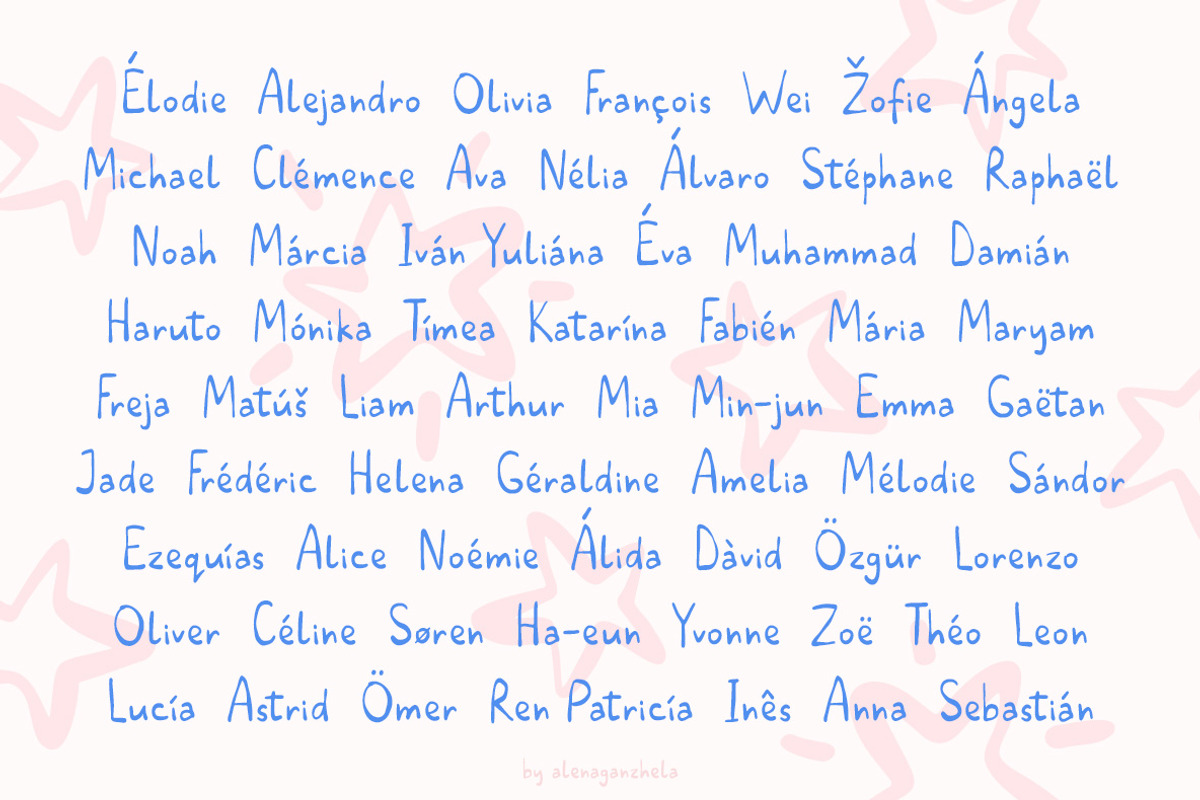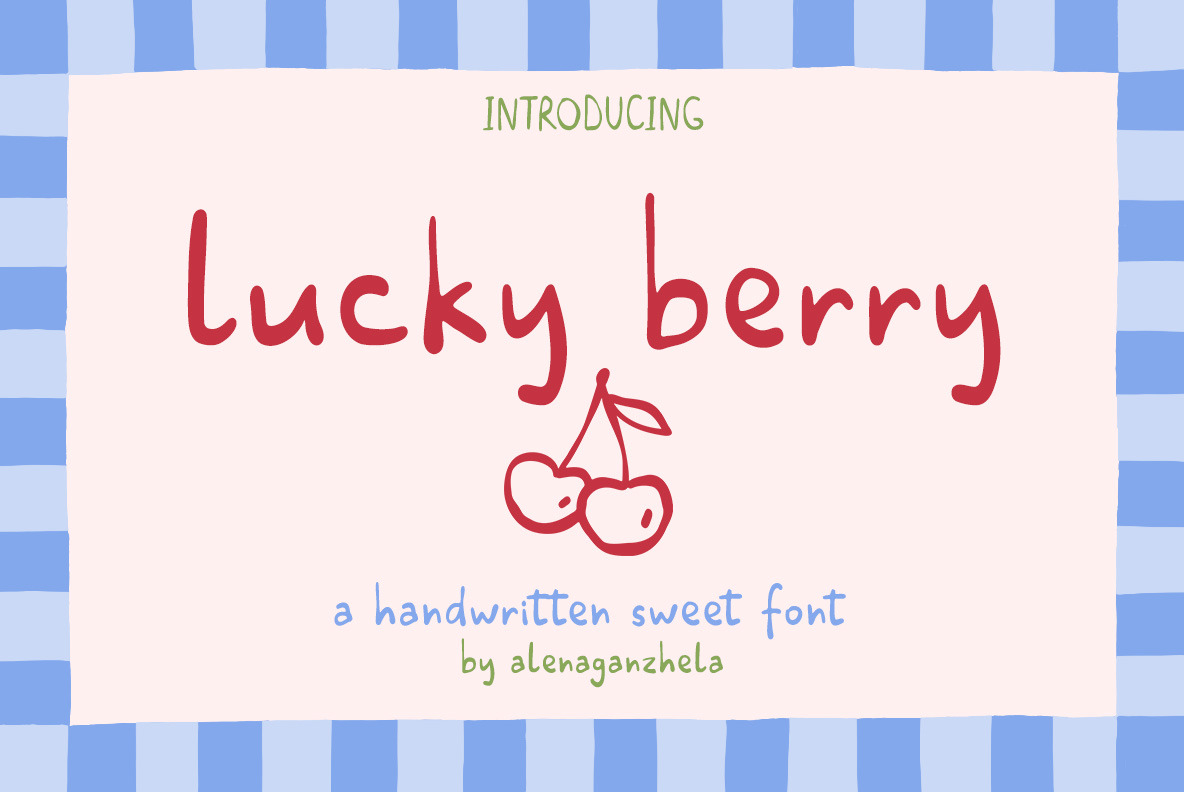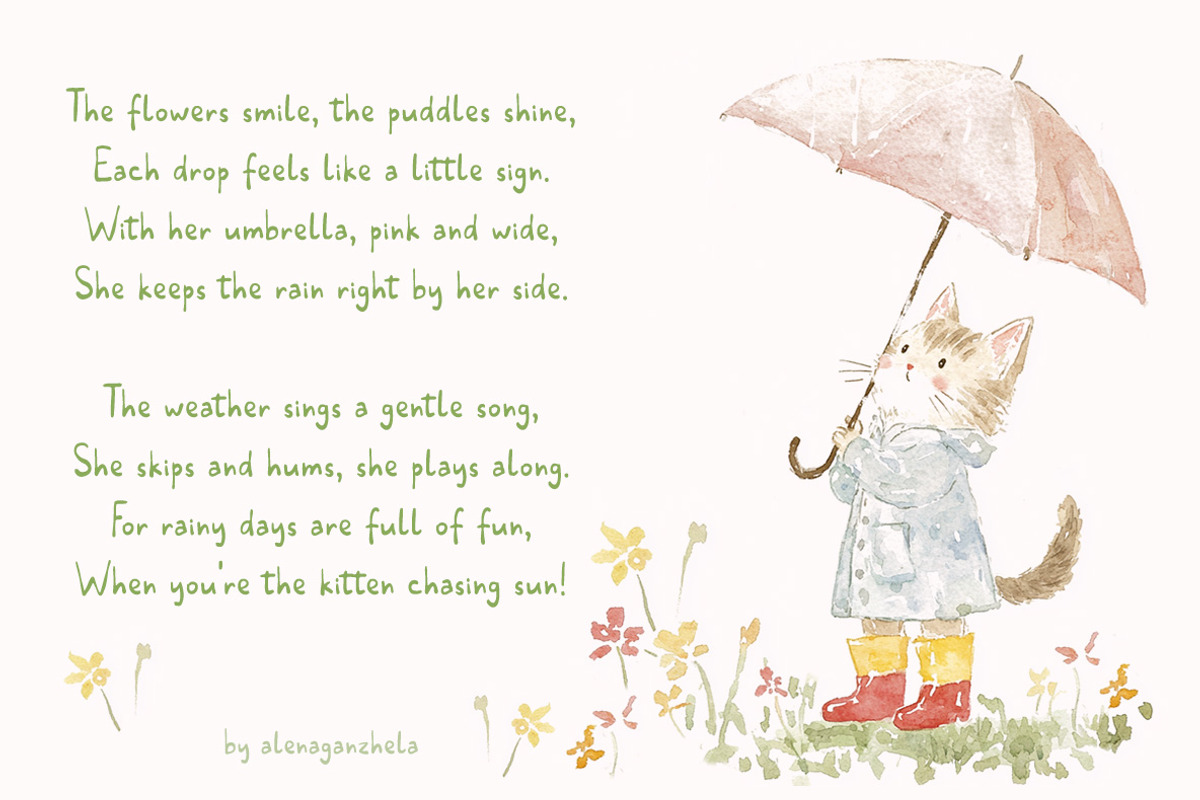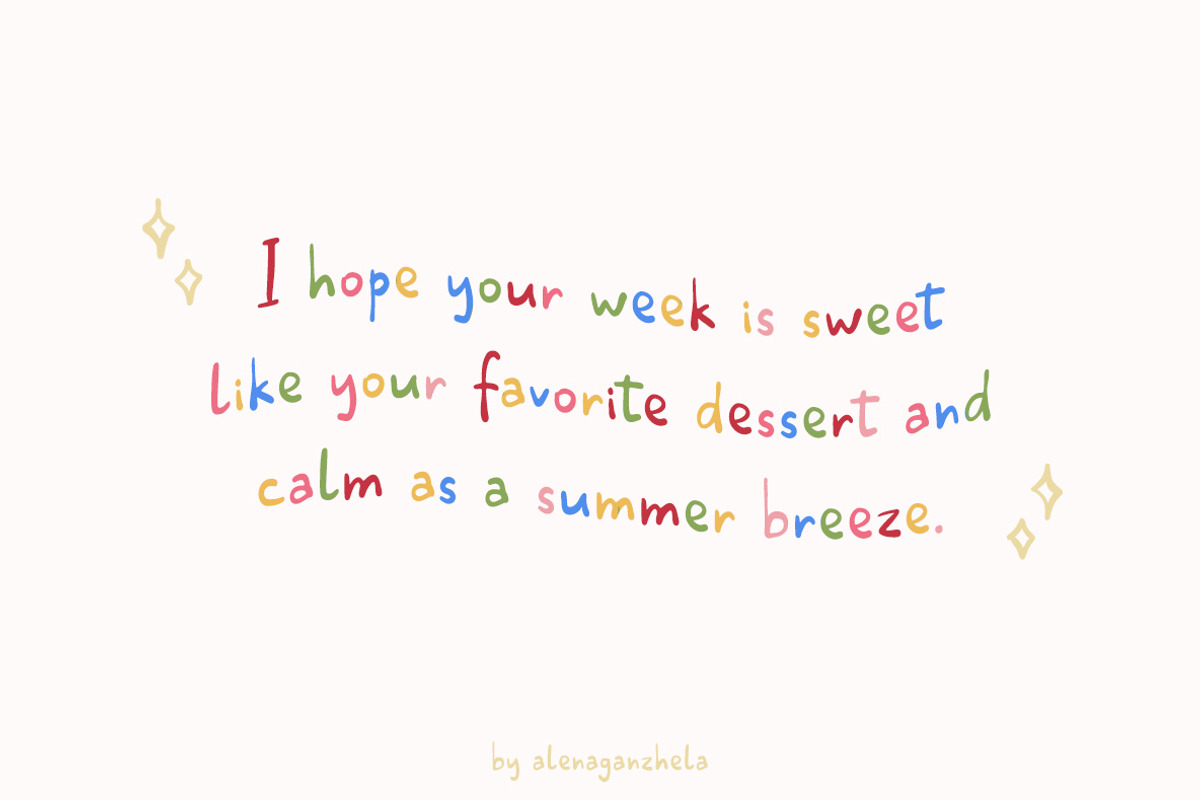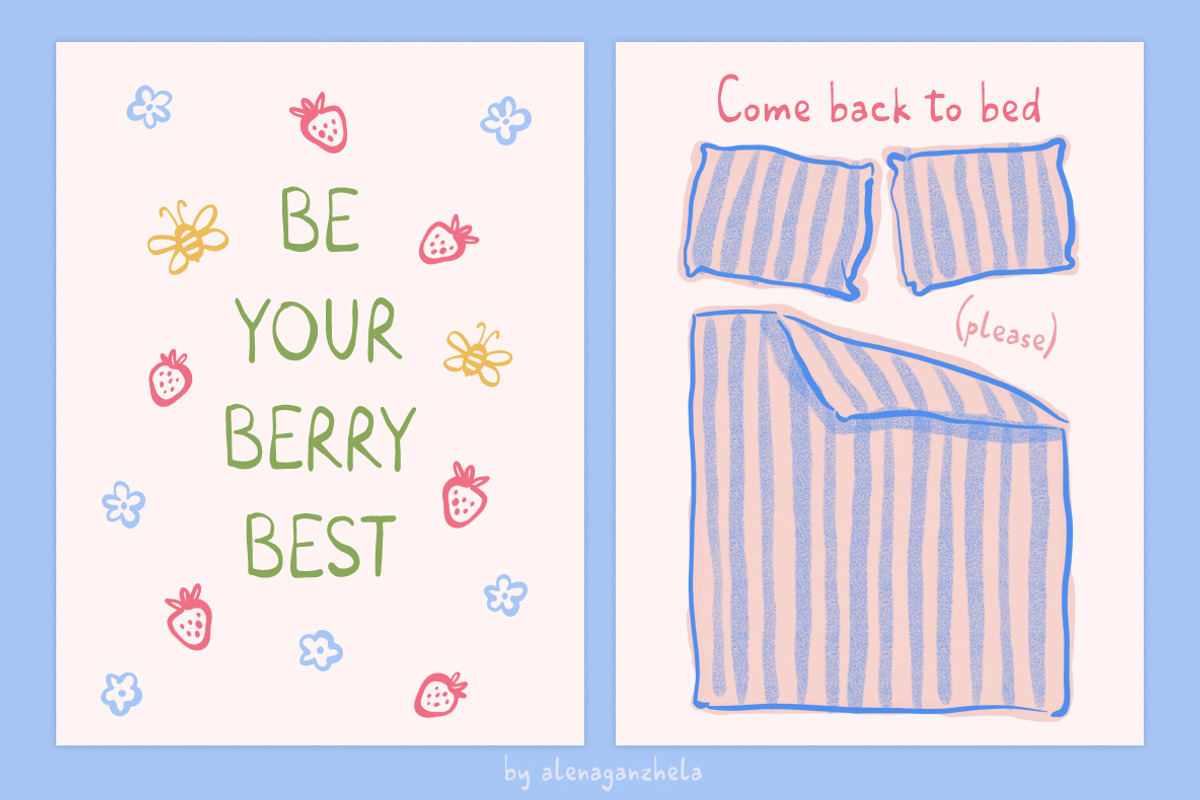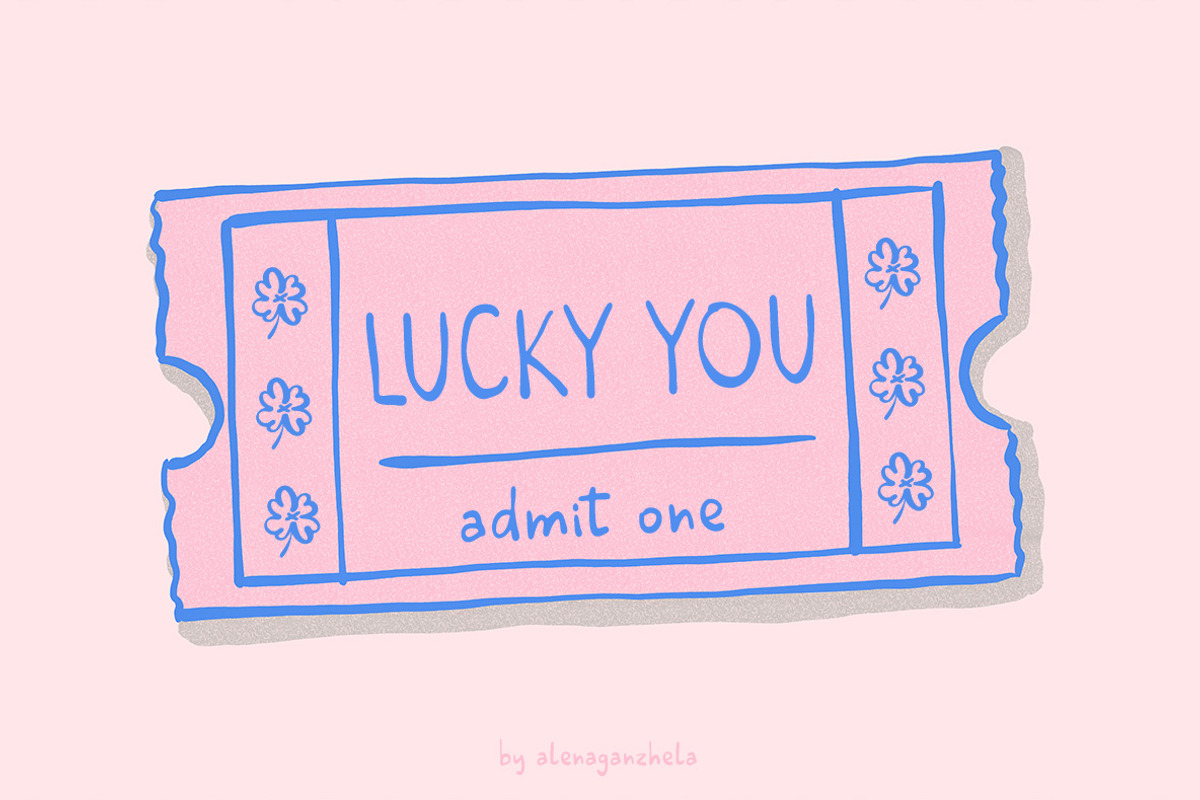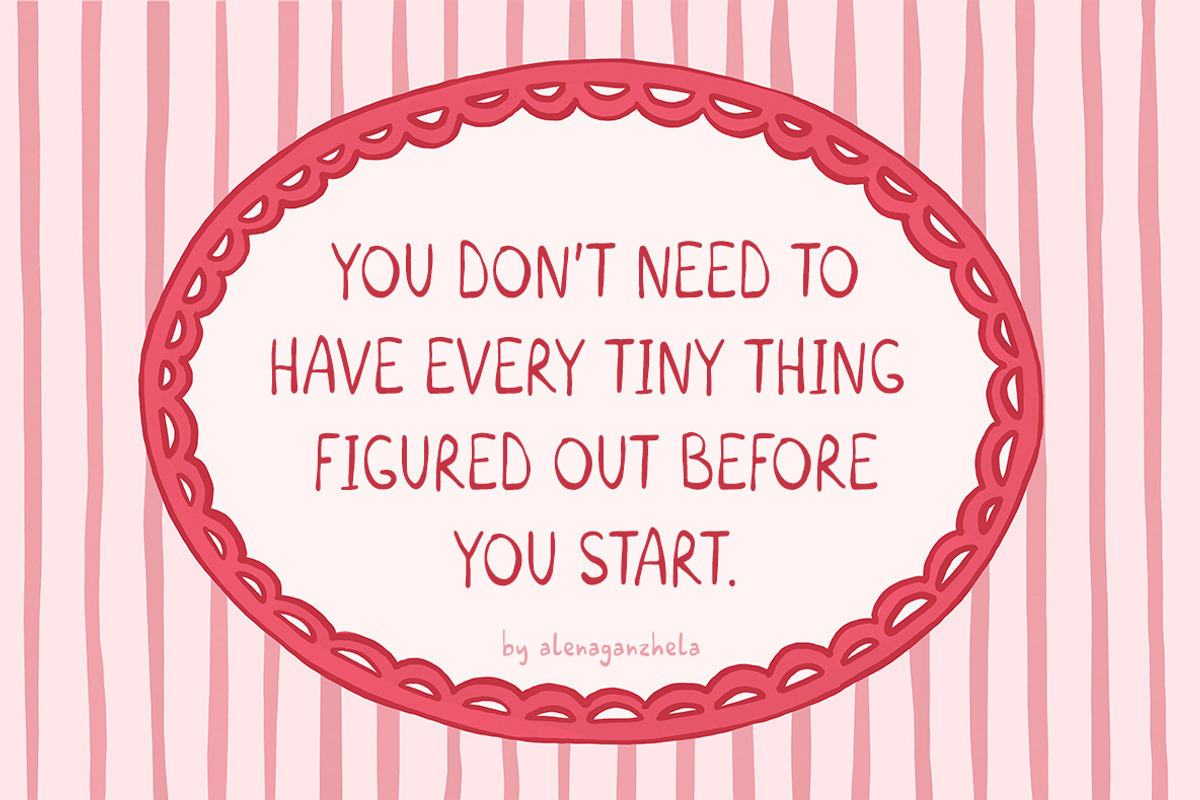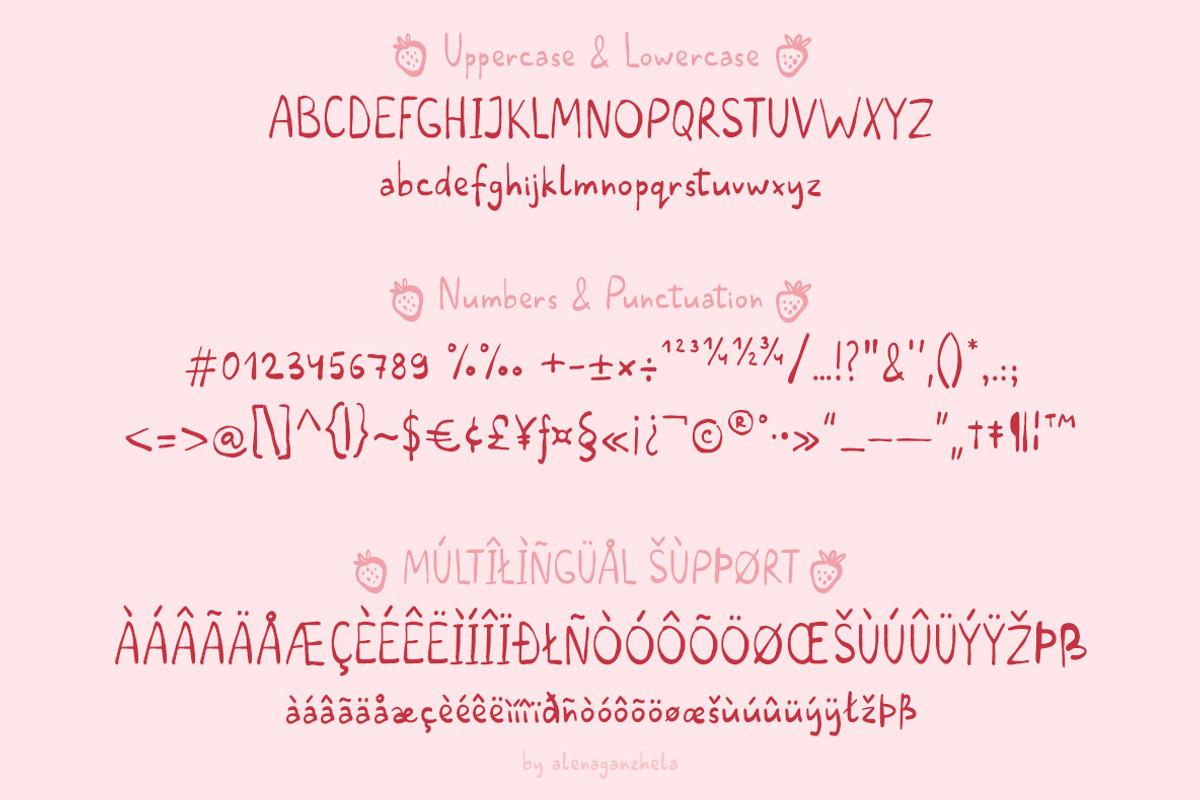
Lucky Berry - cute handwritten font
Lucky Berry is a sweet and whimsical handwritten font inspired by cute notes, joyful moments, and a touch of natural charm. With its soft lines, playful forms, and additional doodle elements, this font is perfect for greeting cards, children’s books, packaging, modern posters, wall art prints, wedding invitations, logos, branding, stationery, social media posts and blogs, decorative designs and much more!
MULTILINGUAL SUPPORT!
Lucky Berry is such a great find! It’s soft, friendly, and effortlessly light, making it perfect for greeting cards. The playful shapes give designs a cozy, natural feel, and the little doodles are such a fun extra! I used it for my cards, and it instantly made them feel warmer and more charming. It works beautifully in both big, bold headlines and smaller text. Definitely a font I’ll keep coming back to! 💕